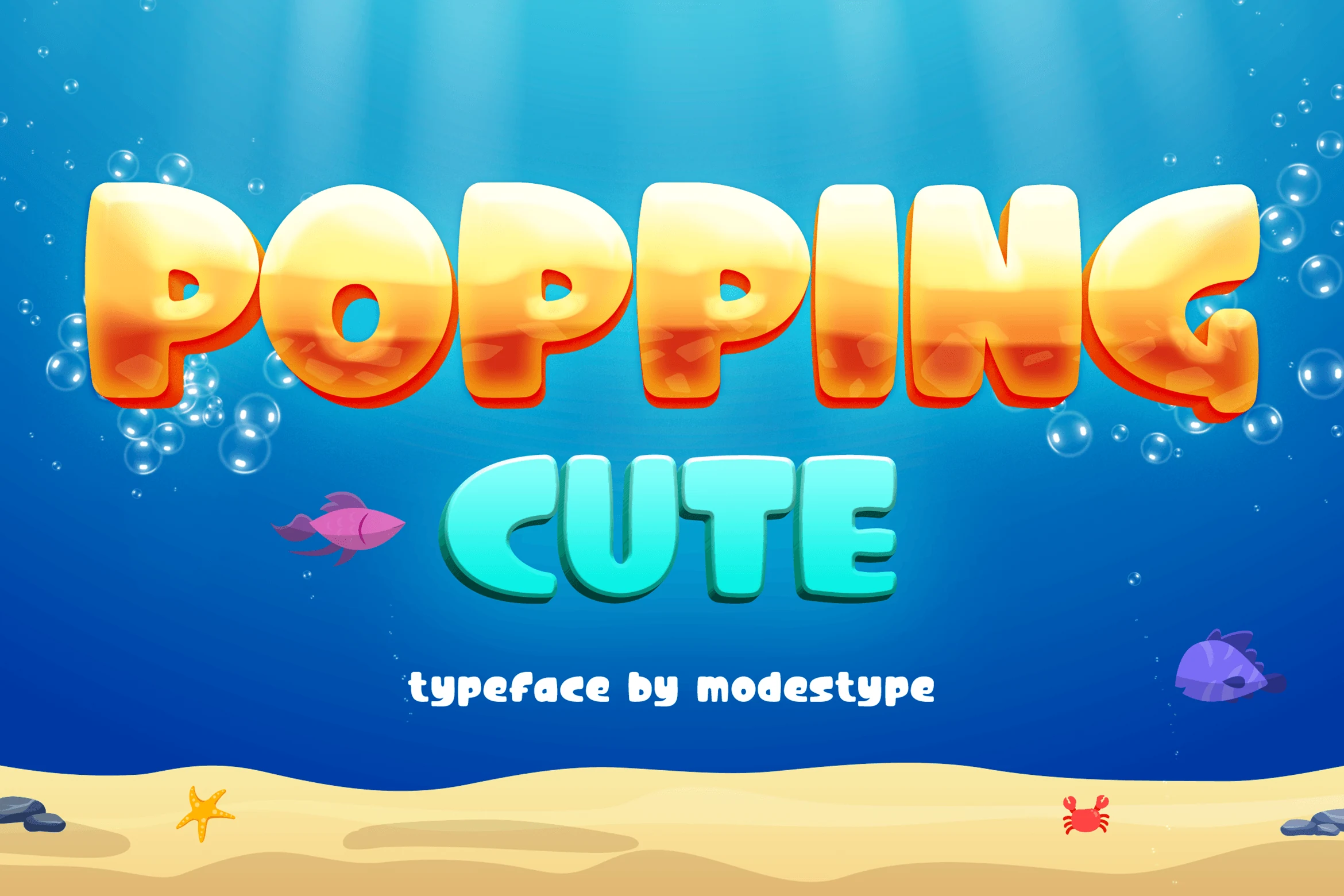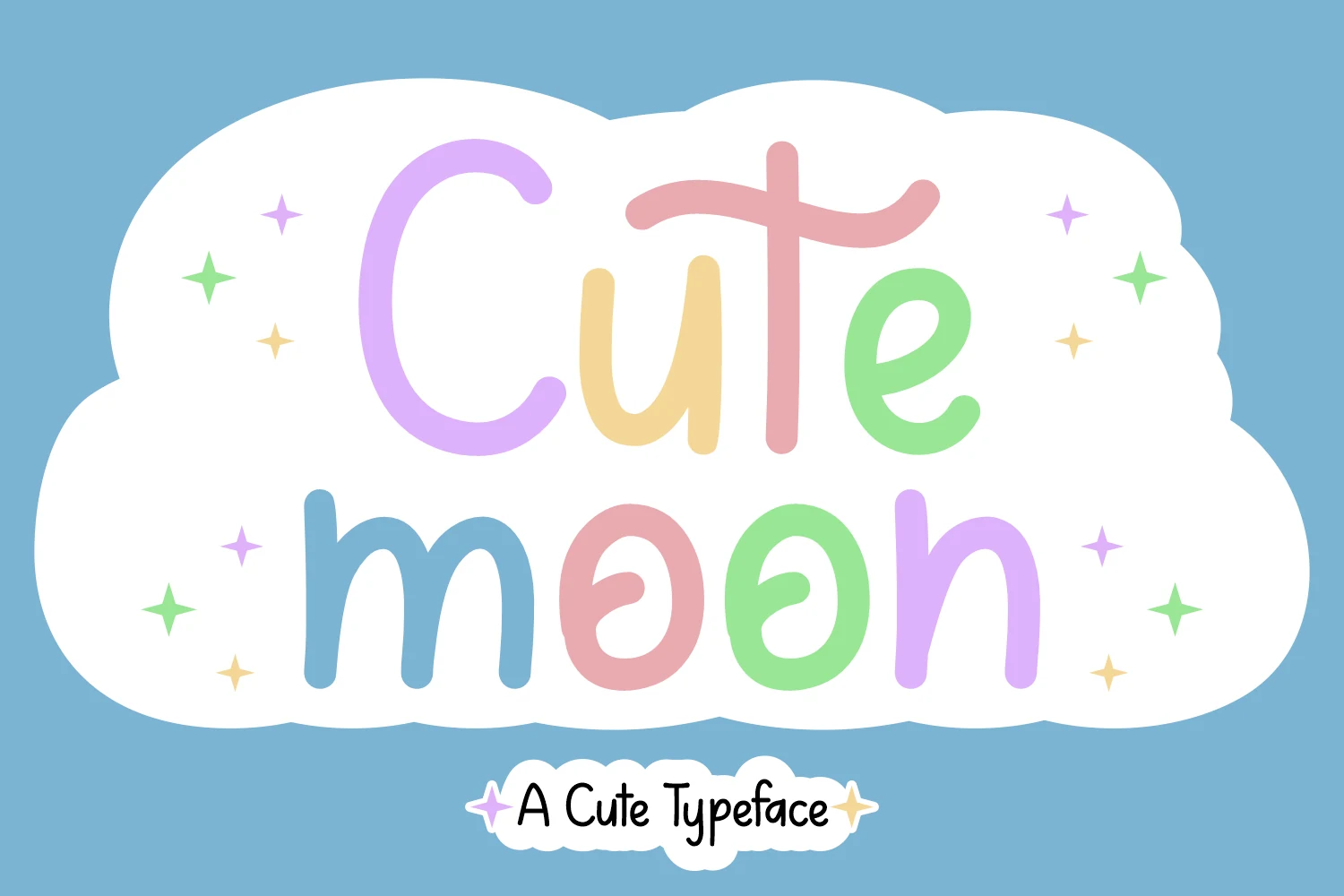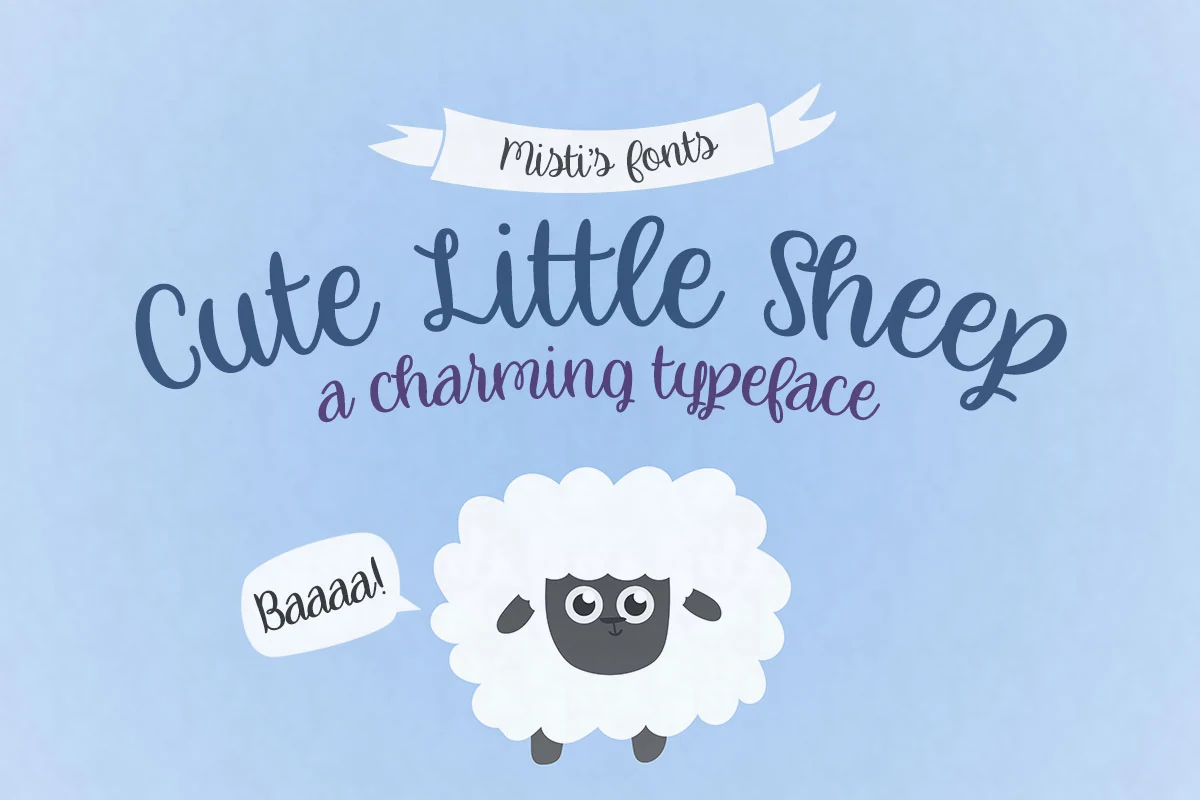
19 Best Cute Fonts for Playful Designs in 2026
Cute fonts are useful when a design needs to feel friendly, soft, playful, or child-focused without becoming visually messy. This collection includes bubbly display letters, rounded handwritten styles, pet-themed dingbats, tracing fonts, candy-inspired lettering, and retro shapes built for cheerful titles and decorative layouts.
Cute Simple Font
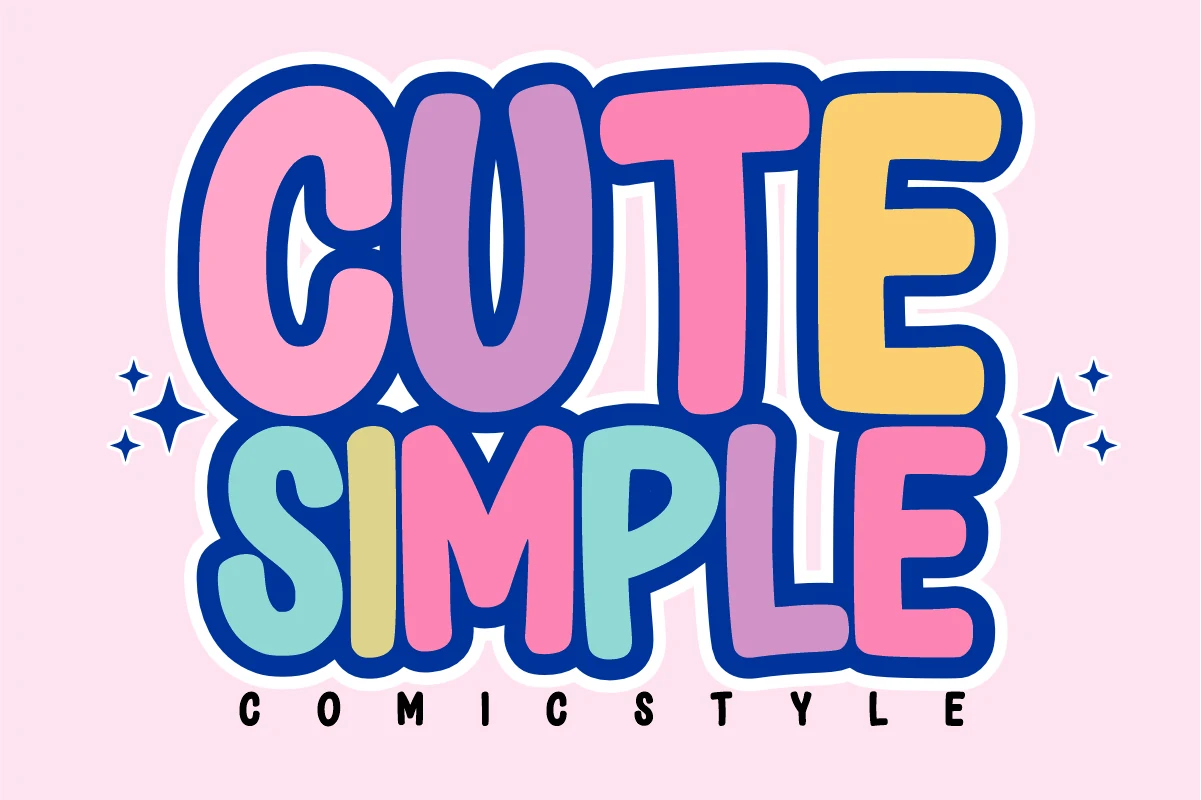
Best For: stickers, children’s designs, playful designs, display text
Cute Simple Font uses chunky bubble letters with soft curves, tight vertical stacking, and a heavy outline that gives each word a sticker-like presence. The rounded counters and uneven playful proportions keep the style friendly without making the shapes feel thin or fragile.
For Cute Fonts projects, it works best when the lettering is treated as the main graphic element rather than supporting text. Keep phrases short, use strong color contrast around the outline, and avoid cramped line spacing so the bold forms stay readable in titles, labels, comic-style graphics, and kid-focused designs.
Cute Dog Font
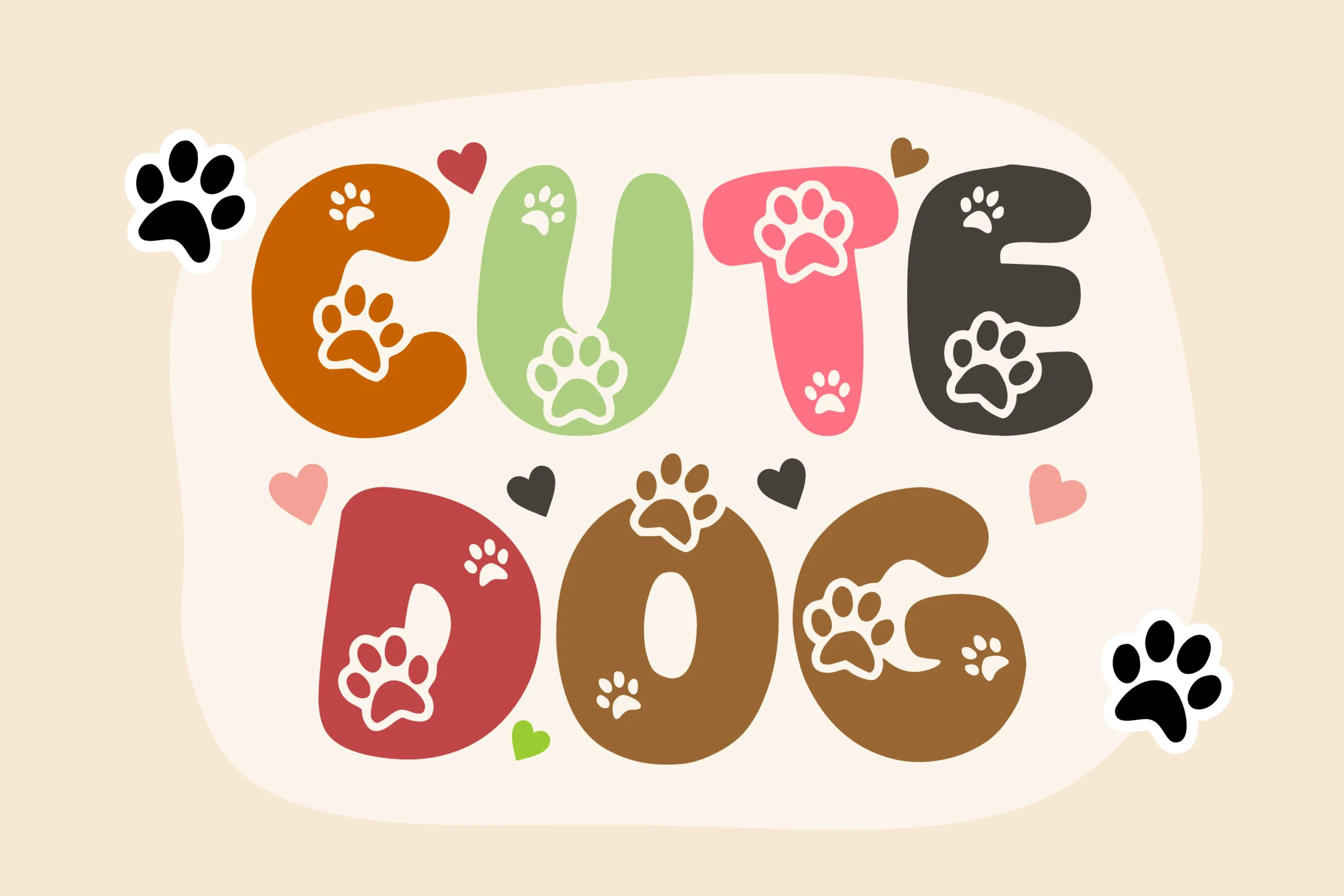
Best For: stickers, T-shirts, short phrases, cute designs
Cute Dog Font turns rounded block letters into a cheerful pet-themed display style, with soft uneven shapes and paw-print cutouts that instantly make the alphabet feel friendly. The strokes stay thick and simple, so each letter reads clearly even with the decorative details built into the forms.
For Cute Fonts projects with a pet angle, this one works best in short headlines, labels, and playful merch where the paw accents can stay visible. Give the letters a bit of breathing room and keep the wording brief—the font has its strongest rhythm when a few big words carry the message instead of long lines.
Barbie Cute Font
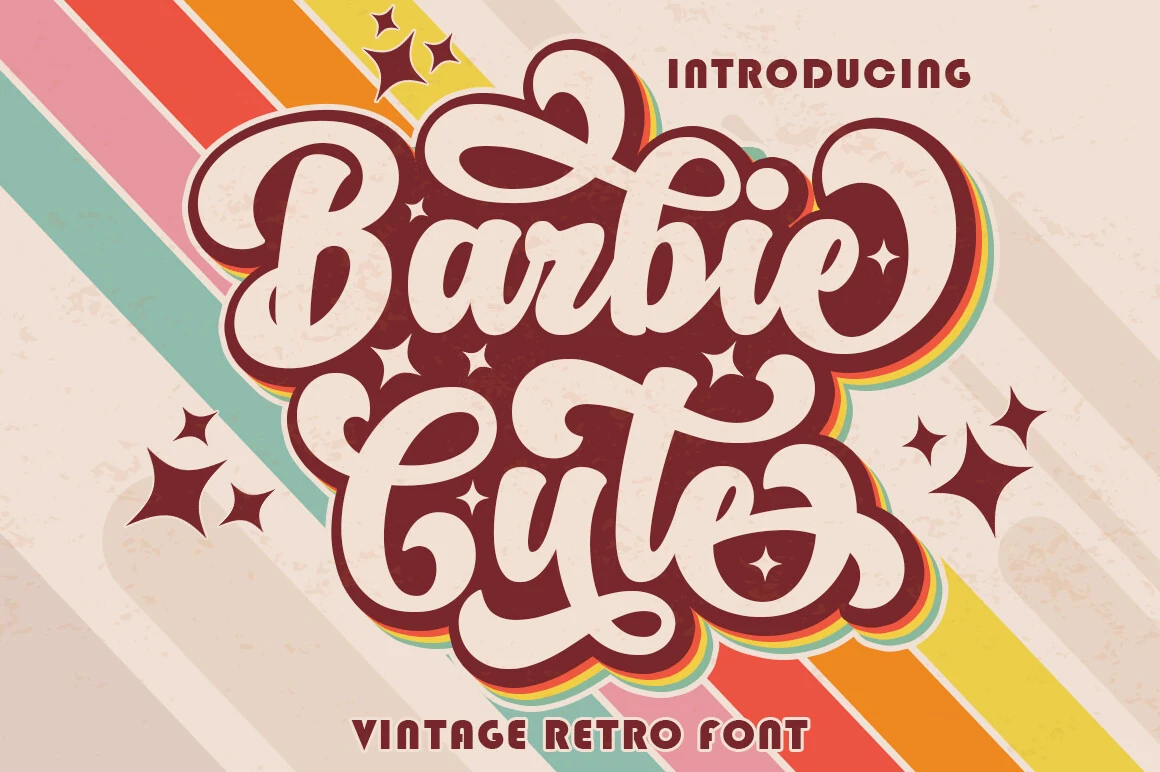
Best For: logos, badges, T-shirts, retro designs
Barbie Cute Font has a thick retro script build, rounded terminals, looping swashes, and a heavy shadowed presence that makes the words feel closer to vintage signage than ordinary handwriting. The connected strokes create a bold, compact rhythm, while the cream-filled letter shapes leave enough interior space to keep short words readable.
In Cute Fonts projects with a nostalgic angle, it works best as a main title or logo mark where the decorative curves can carry the identity. PUA encoding helps keep its character details accessible, and the font benefits from strong outline contrast, generous margins, and limited wording so the swashes do not crowd the composition.
Cute Bubble Font
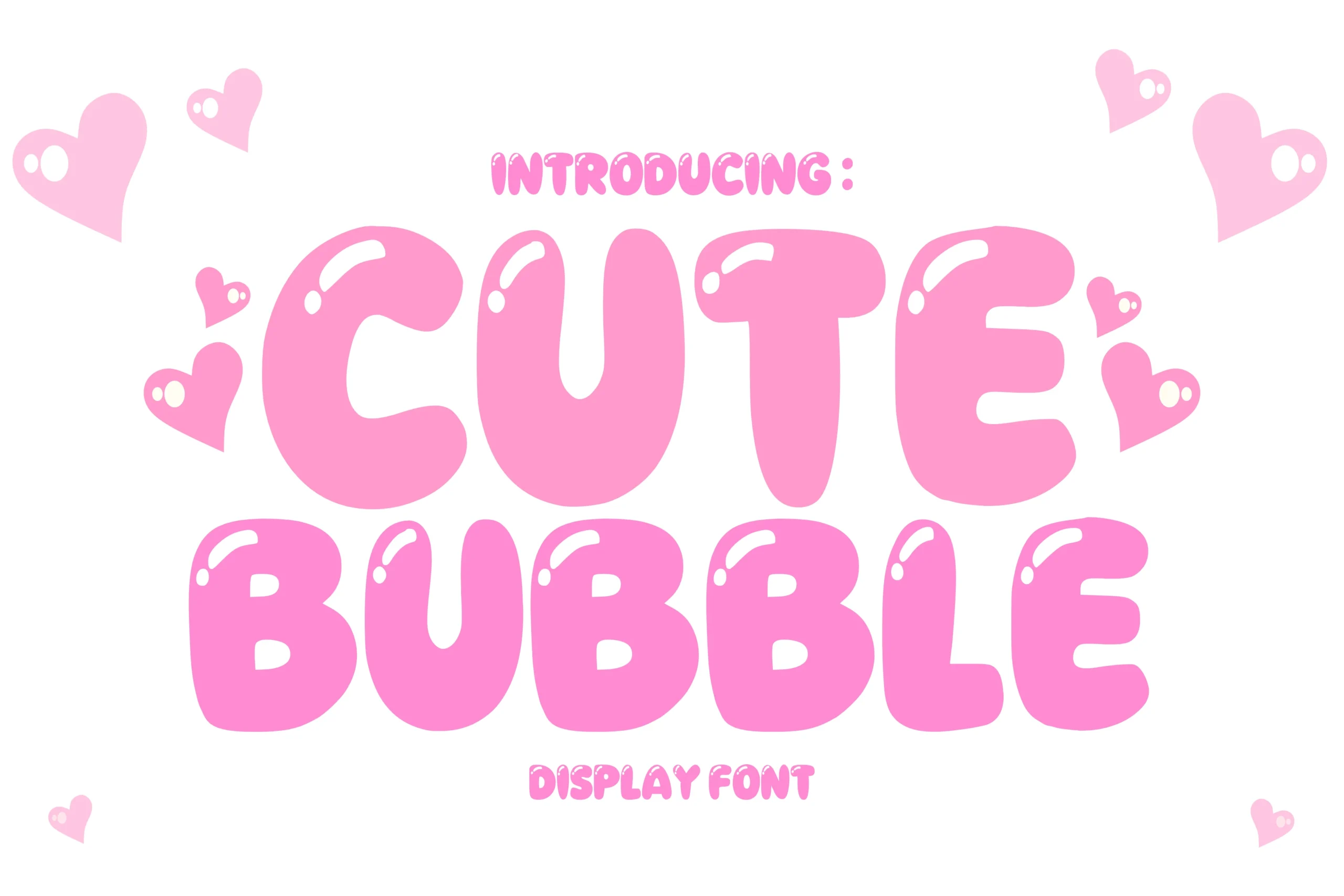
Best For: social media graphics, invitations, children’s designs, cute designs
Cute Bubble Font leans into inflated letterforms, soft corners, and thick even strokes that make every word feel lighthearted and approachable. The glossy highlight detail enhances the bubble effect, while the broad uppercase shapes keep the style bold enough for titles without losing its sweet, friendly tone.
For Cute Fonts collections, this one works best in short upbeat lines where the chunky rhythm can stay clear and playful. Use a little extra line spacing and keep supporting text simple, so the rounded forms have room to pop on invites, social posts, and kid-focused graphics.
Cute Rabbit Font
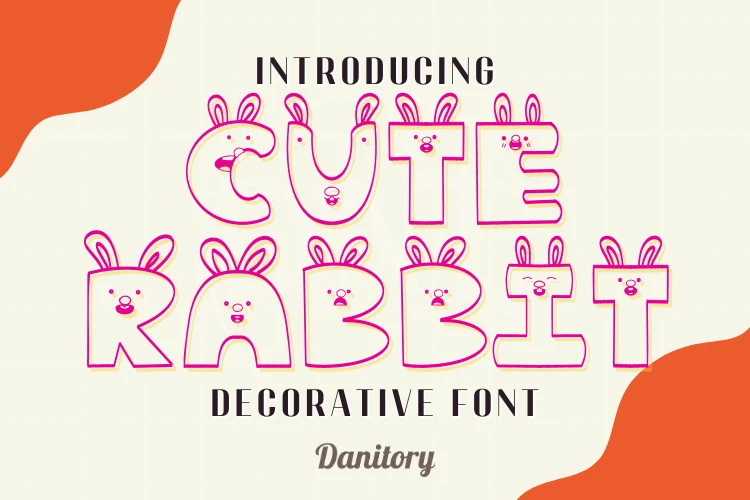
Best For: T-shirts, children’s designs, cute designs, fun designs
Cute Rabbit Font is a hand-drawn display style built from chunky uppercase letters, each topped with bunny ears and dotted with tiny facial details. The open interiors, thin pink outline, and slightly uneven contours give it a cheerful handmade feel that stays readable while still looking fully decorative.
Within Cute Fonts, this one shines in short seasonal headlines where the ear shapes remain visible and the letters can carry the theme on their own. Use it at a generous size, keep tracking comfortable, and pair it with simple supporting text so the playful details do not get crowded on mugs, worksheets, presentations, or T-shirt graphics.
Tracing Cute Font
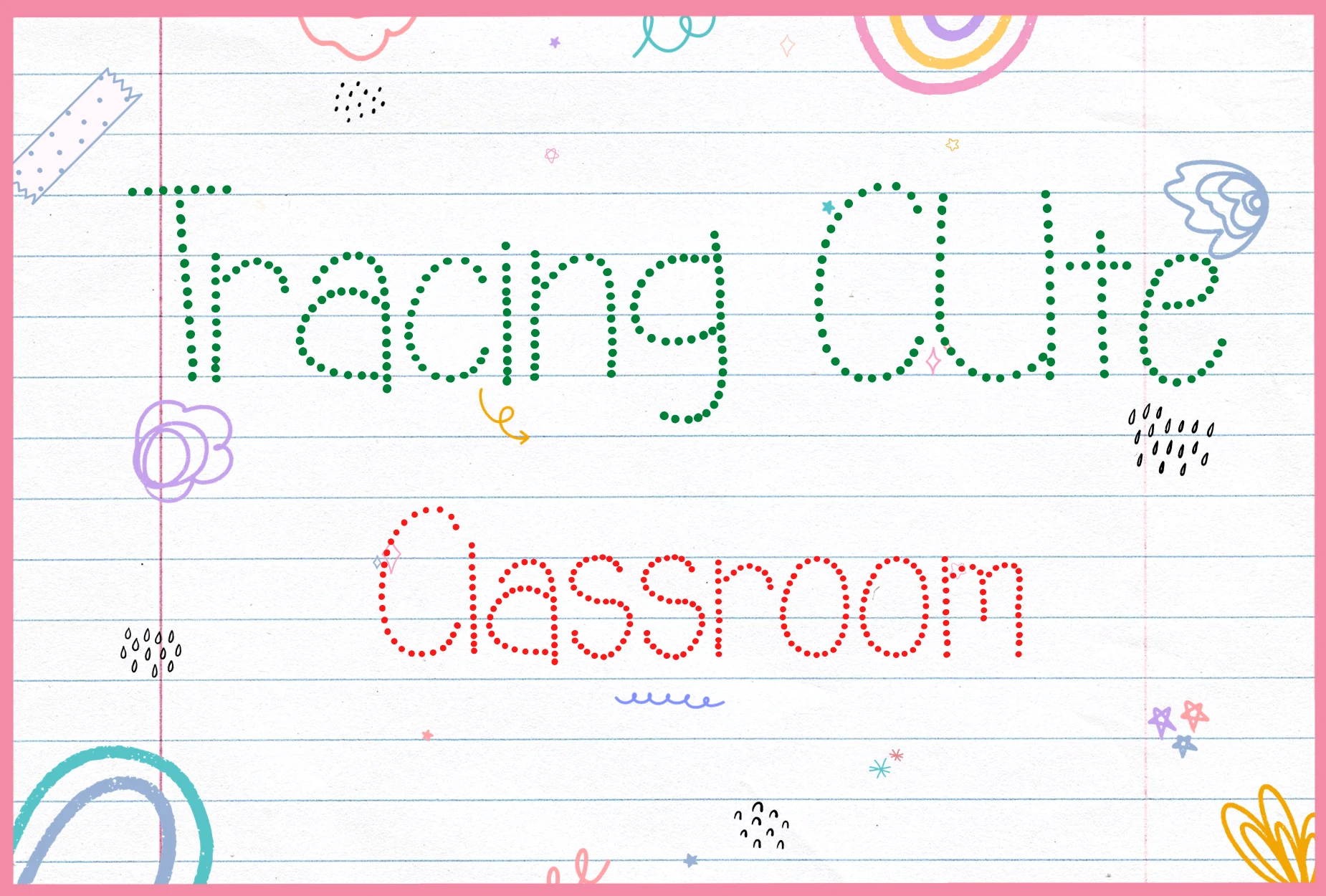
Best For: children’s designs, handmade designs, creative projects, cute designs
Tracing Cute Font is built from dotted letter paths with rounded lowercase shapes, clear spacing, and a classroom-style rhythm. The dots define each stroke without filling the forms, which makes the letters practical for tracing sheets while still keeping a soft, friendly look.
For Cute Fonts projects focused on learning materials, this font is most useful when the baseline and letter size stay consistent across the page. Use it for alphabet practice, notebooks, and workbooks where large spacing, simple words, and clean guide lines help young readers follow each letter without visual clutter.
Cute Clouds Font
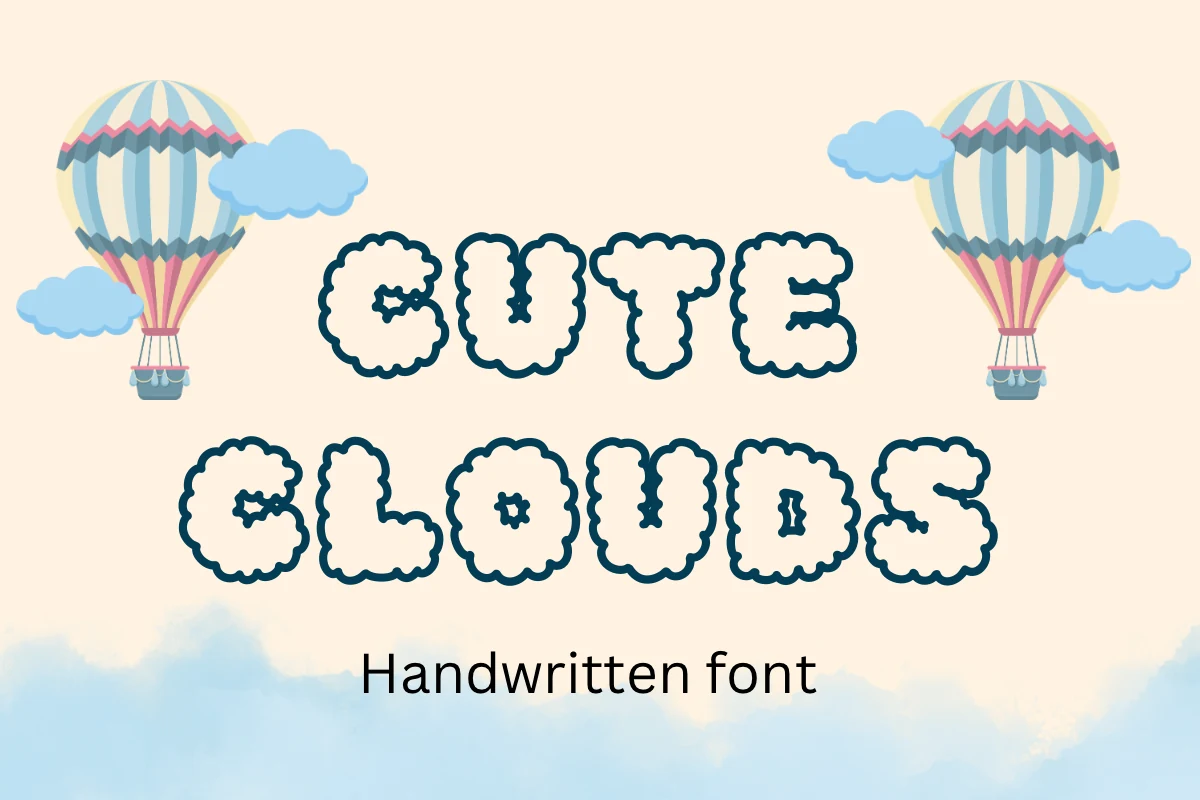
Best For: posters, children’s designs, playful designs, cute designs
Cute Clouds Font turns each letter into a soft, puffy shape, with scalloped edges and a dark outline that keeps the fluffy forms easy to read. The rounded silhouettes give it a light floating rhythm, so even simple words feel warm, whimsical, and friendly on the page.
For Cute Fonts projects, it works best in short seasonal headings, craft graphics, presentation covers, and greeting-style layouts where the rounded forms can stay large. Keep supporting text plain and give the outline room around the edges, so the bubbly proportions stay clean instead of cramped.
The best cute font depends on how much personality the design needs. Bubble and candy styles are stronger for stickers, party graphics, and bold children’s titles, while handwritten and script options are better for soft invitations, names, greeting cards, and handmade-style layouts.